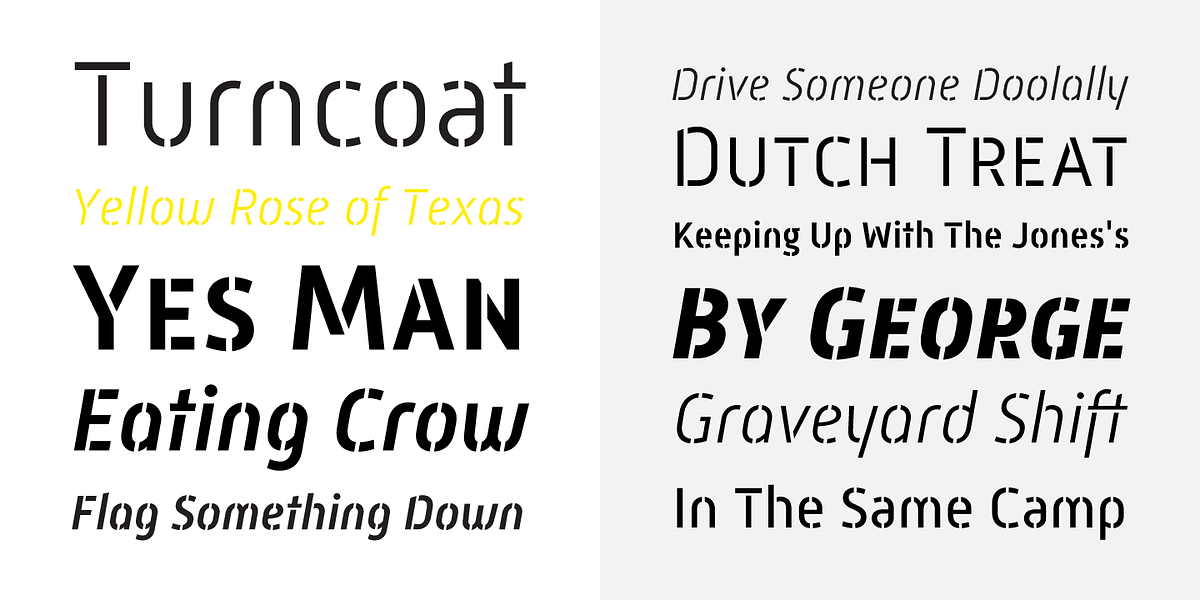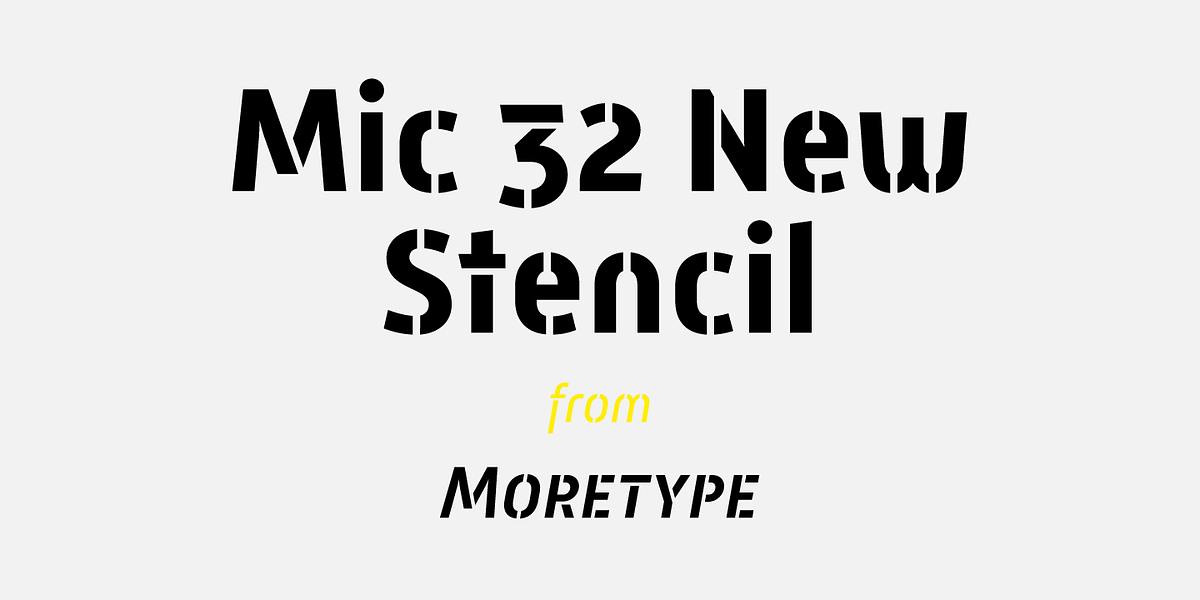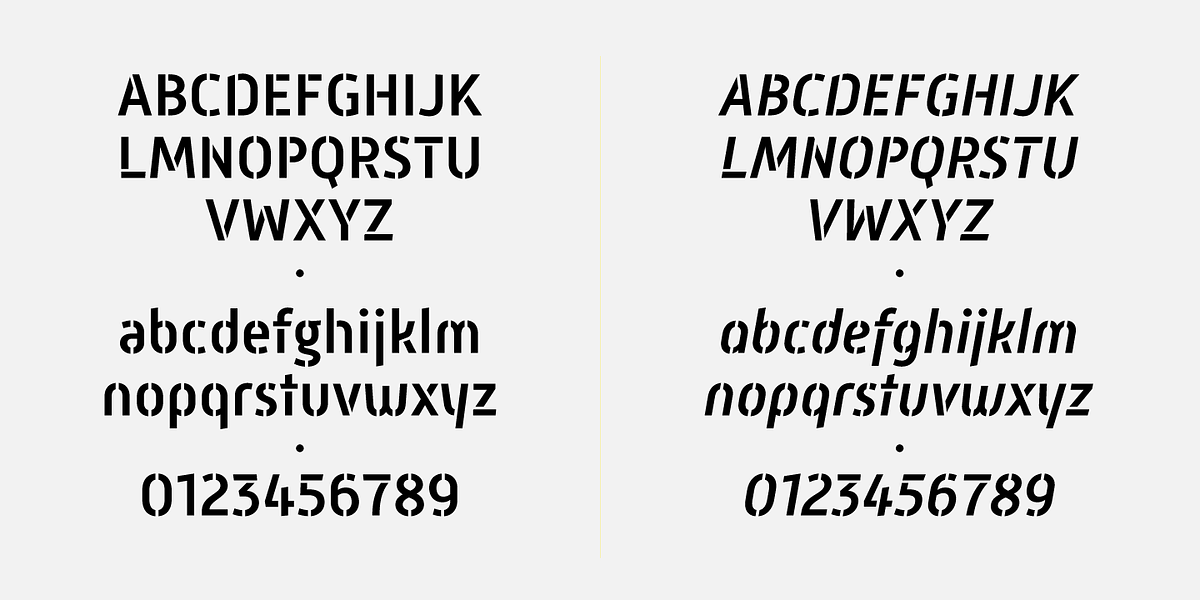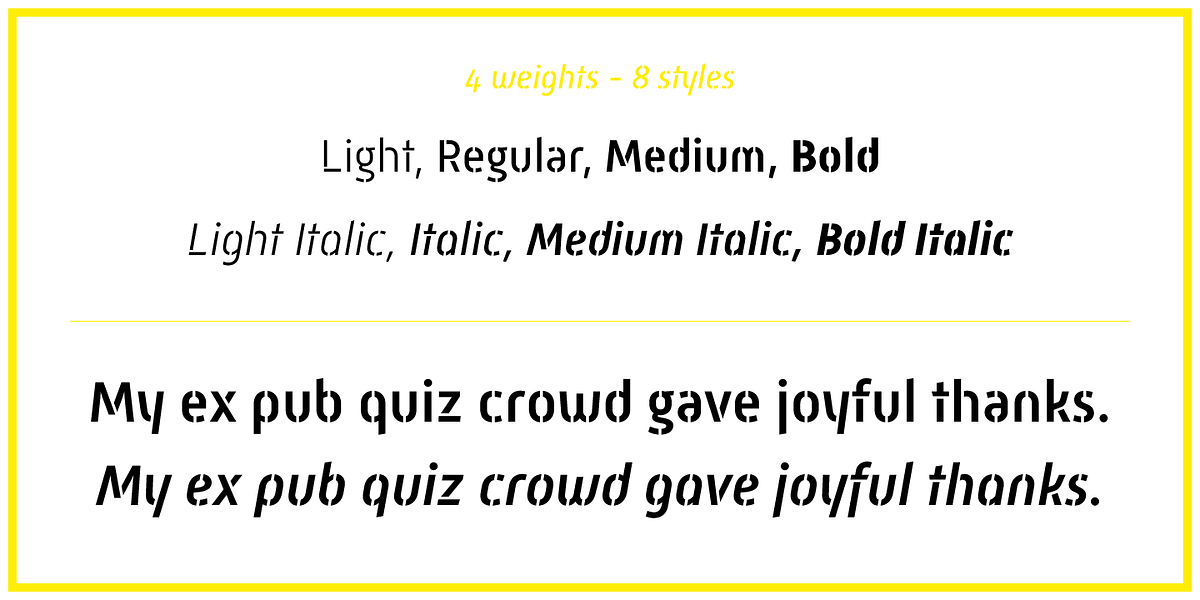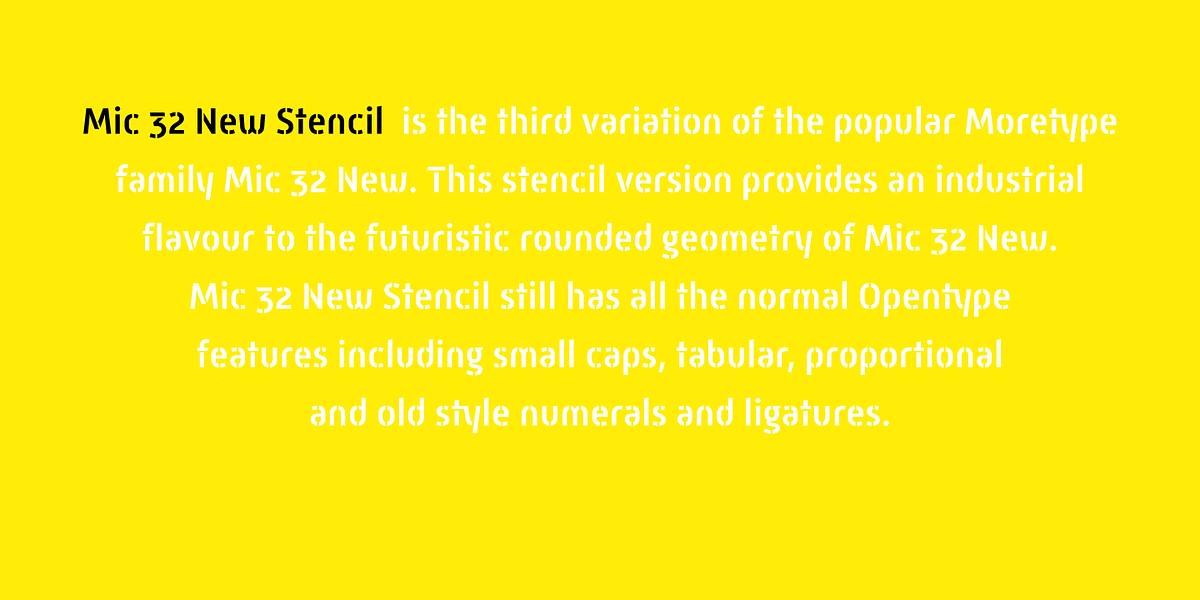
Mic 32 New Stencil
Mic 32 New Stencil is a stencil typeface based on the Mic 32 New font family. It retains the rounded geometric shapes of its predecessor but adds an industrial edge through the stencil style. This font is well-suited for headlines and corporate branding due to its bold and futuristic appearance.